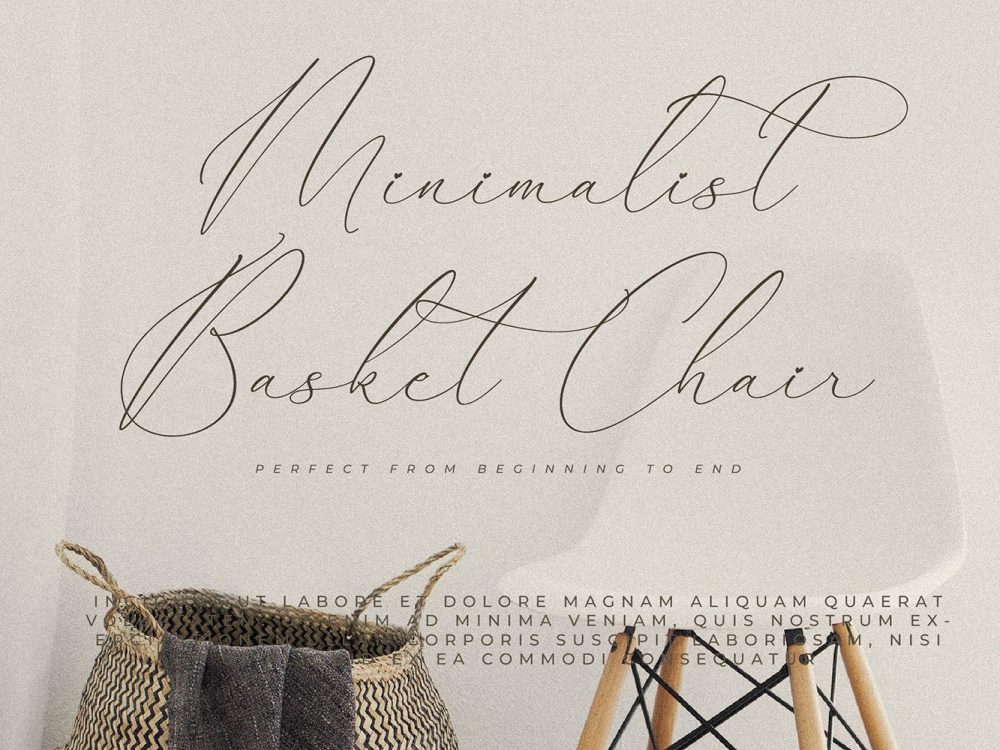
Qirtandy Fantasia Free Font is an elegant and dainty handwritten font that features sweet and delicate swashes. This original look will appeal to a wide range of crafty ideas, from letterheads and titles to stationery. If you like it don’t forget to check out the full version.
Author: Storytype Studio.